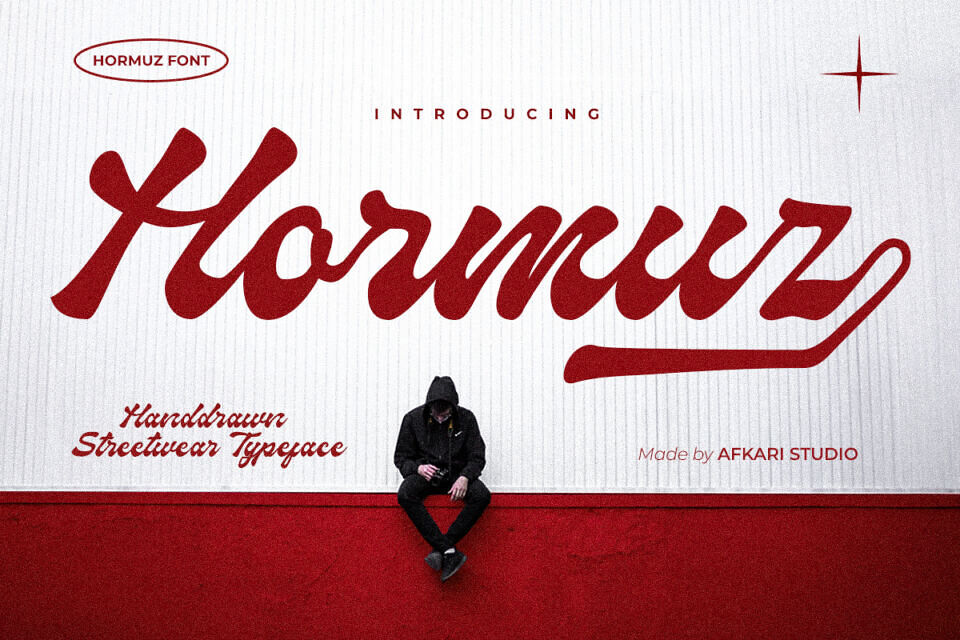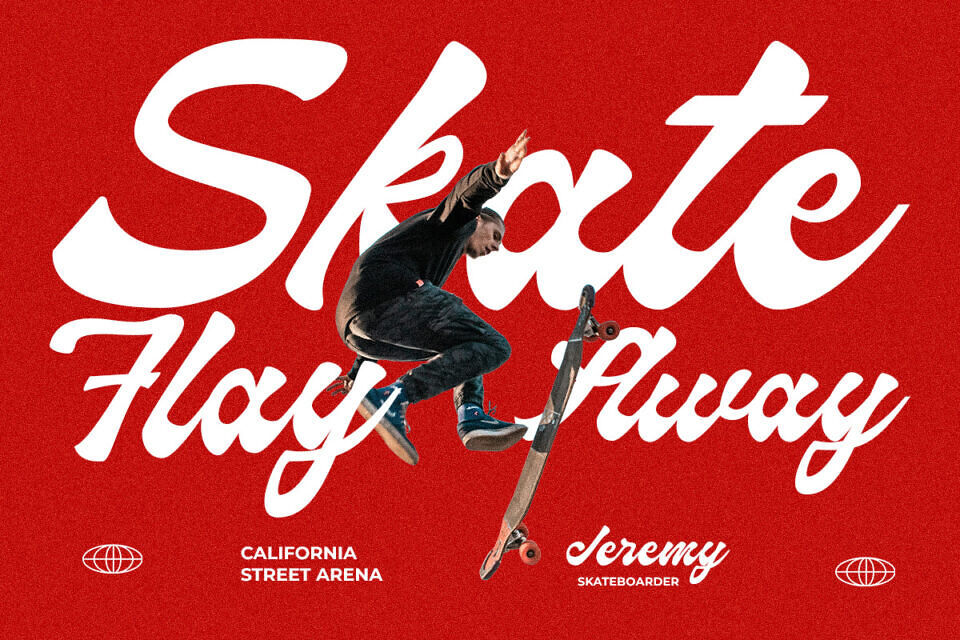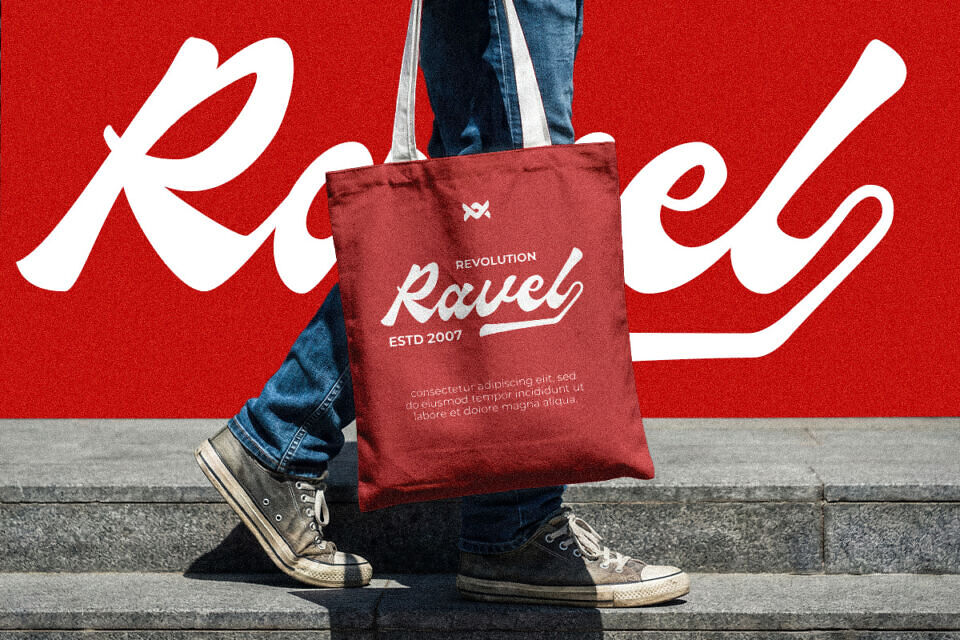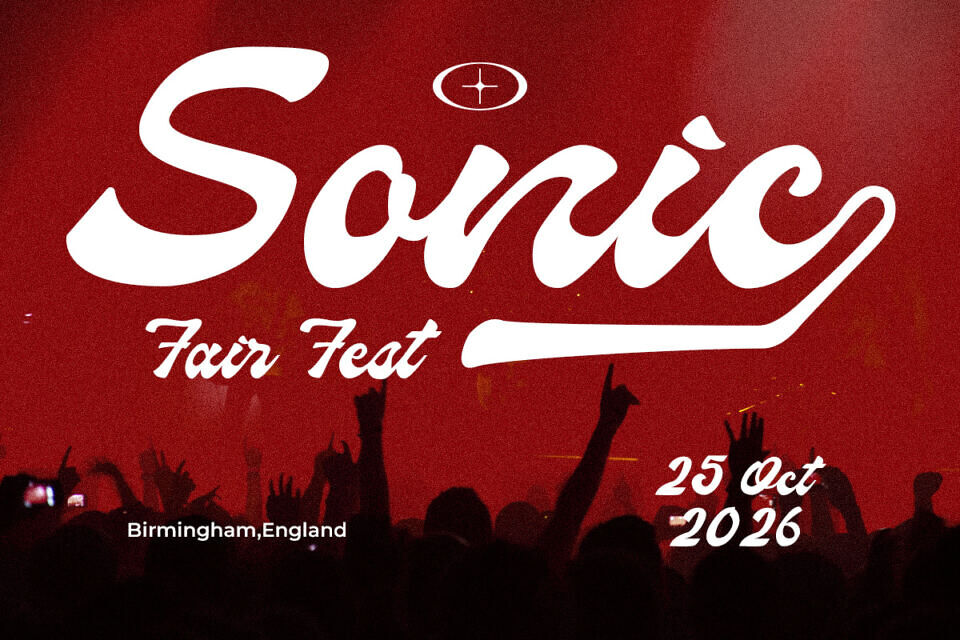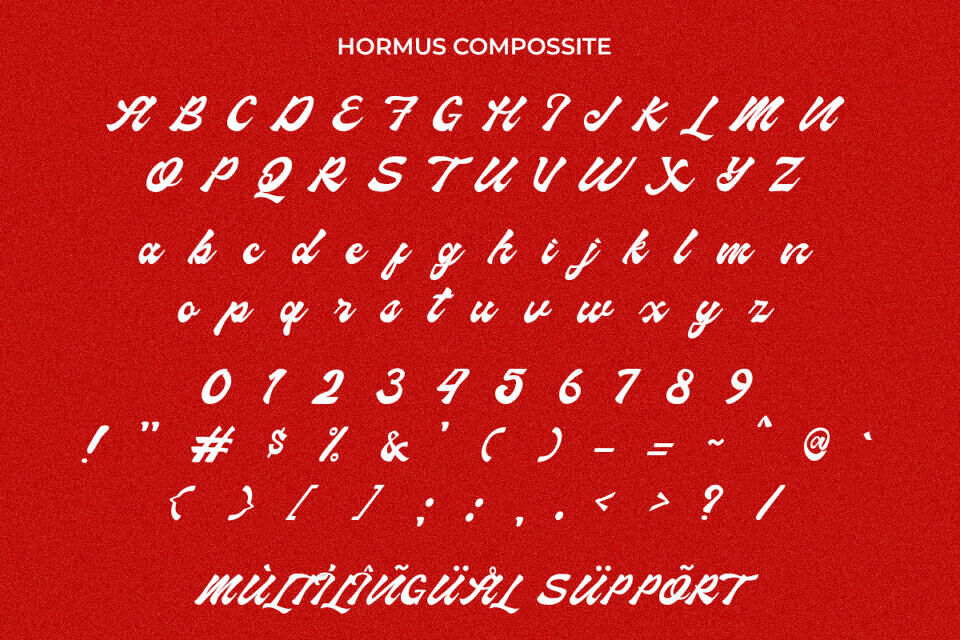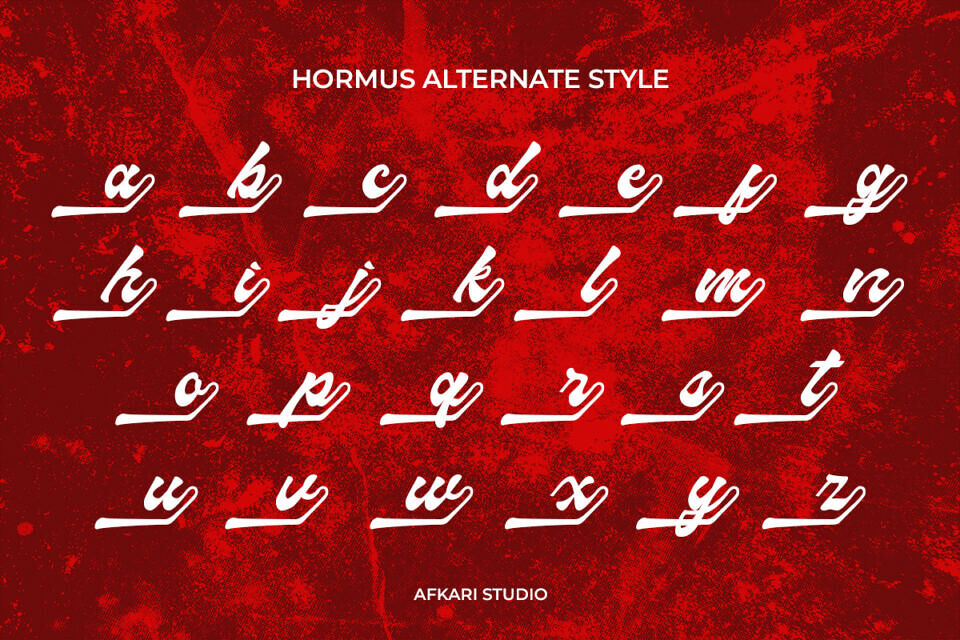
Hormuz is a bold script handwritten streetwear font crafted to deliver strong attitude and urban energy into your designs. Inspired by street culture, graffiti aesthetics, and modern fashion branding, this font features thick strokes, dynamic curves, and expressive letterforms that instantly grab attention.
Whether you’re designing for fashion brands, streetwear labels, music artwork, or social media content, Hormuz brings a raw and stylish vibe that resonates with modern urban audiences. It’s the perfect choice for projects that demand bold expression and visual impact.